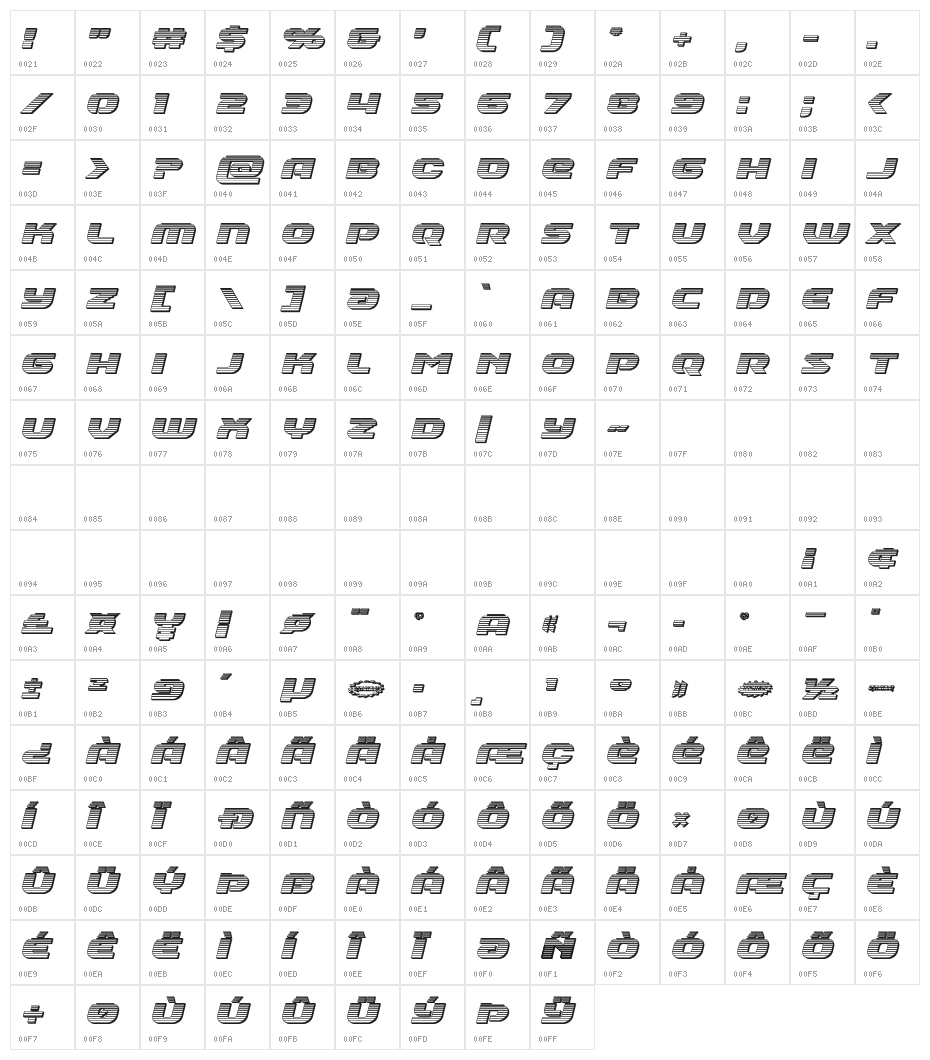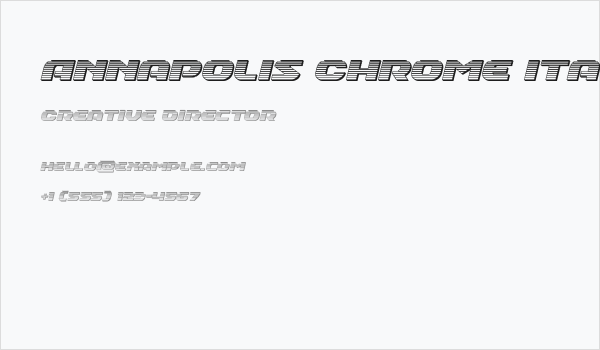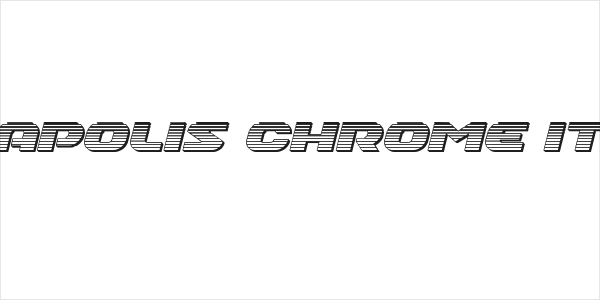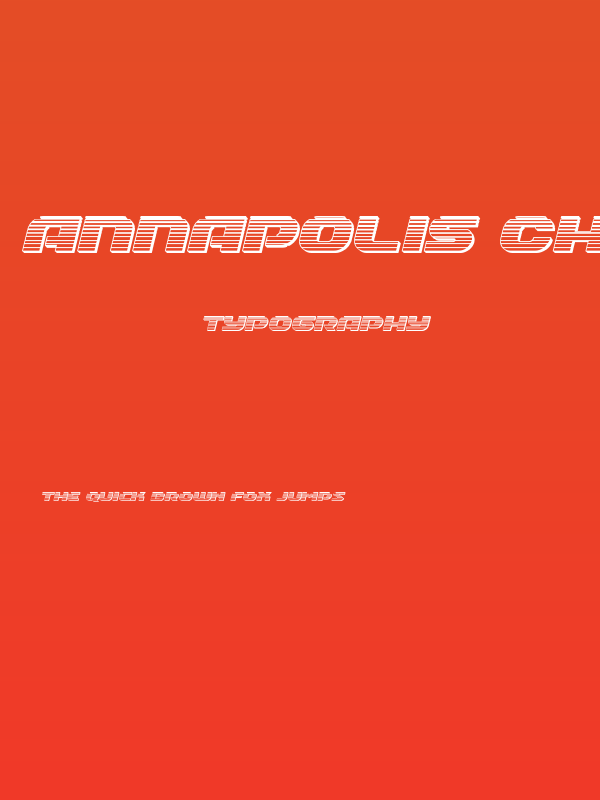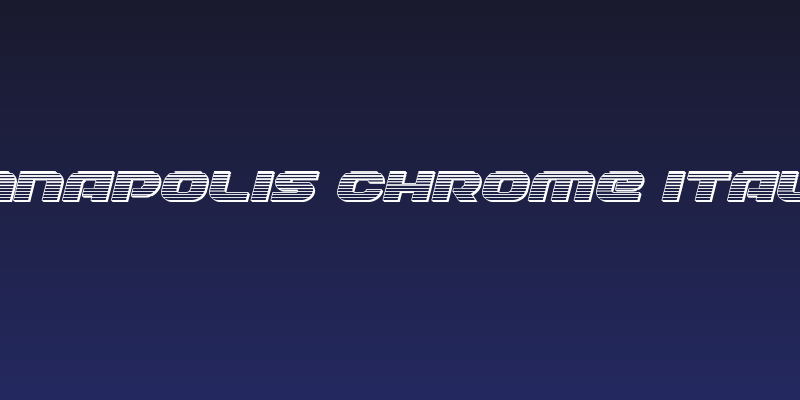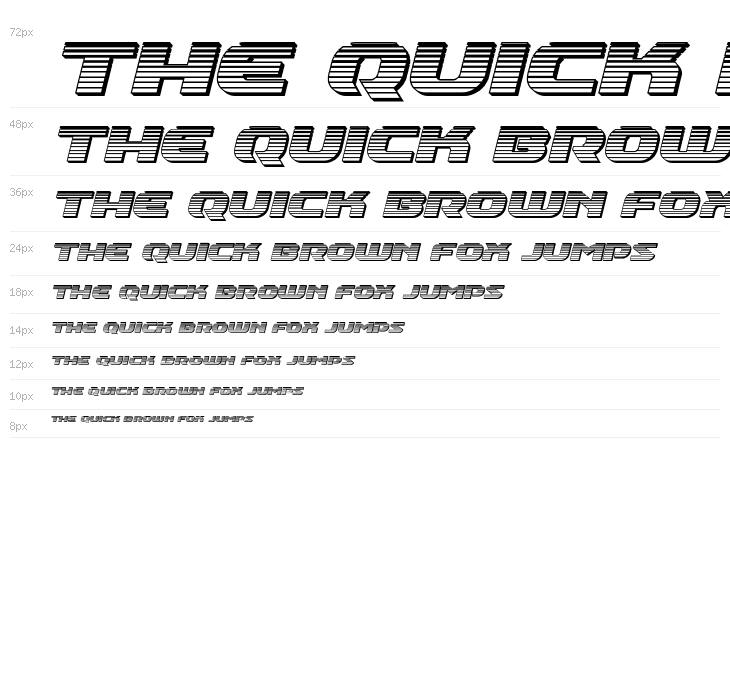
Annapolis Chrome Italic Font
Annapolis Chrome Italic Description
This font features a bold, italicized style with a distinct chrome-like appearance. The characters are constructed with multiple horizontal lines that give a three-dimensional, metallic effect. The overall design is futuristic and dynamic, with a sense of movement and energy. The uppercase and lowercase letters maintain a consistent style, while the numbers and special characters complement the alphabet with the same striped pattern. The font's unique design makes it stand out, ideal for projects that require a modern and eye-catching typeface.
| Proposed Projects | Ideal for sci-fi themed posters, video game titles, tech branding, and any project needing a modern, dynamic look. |